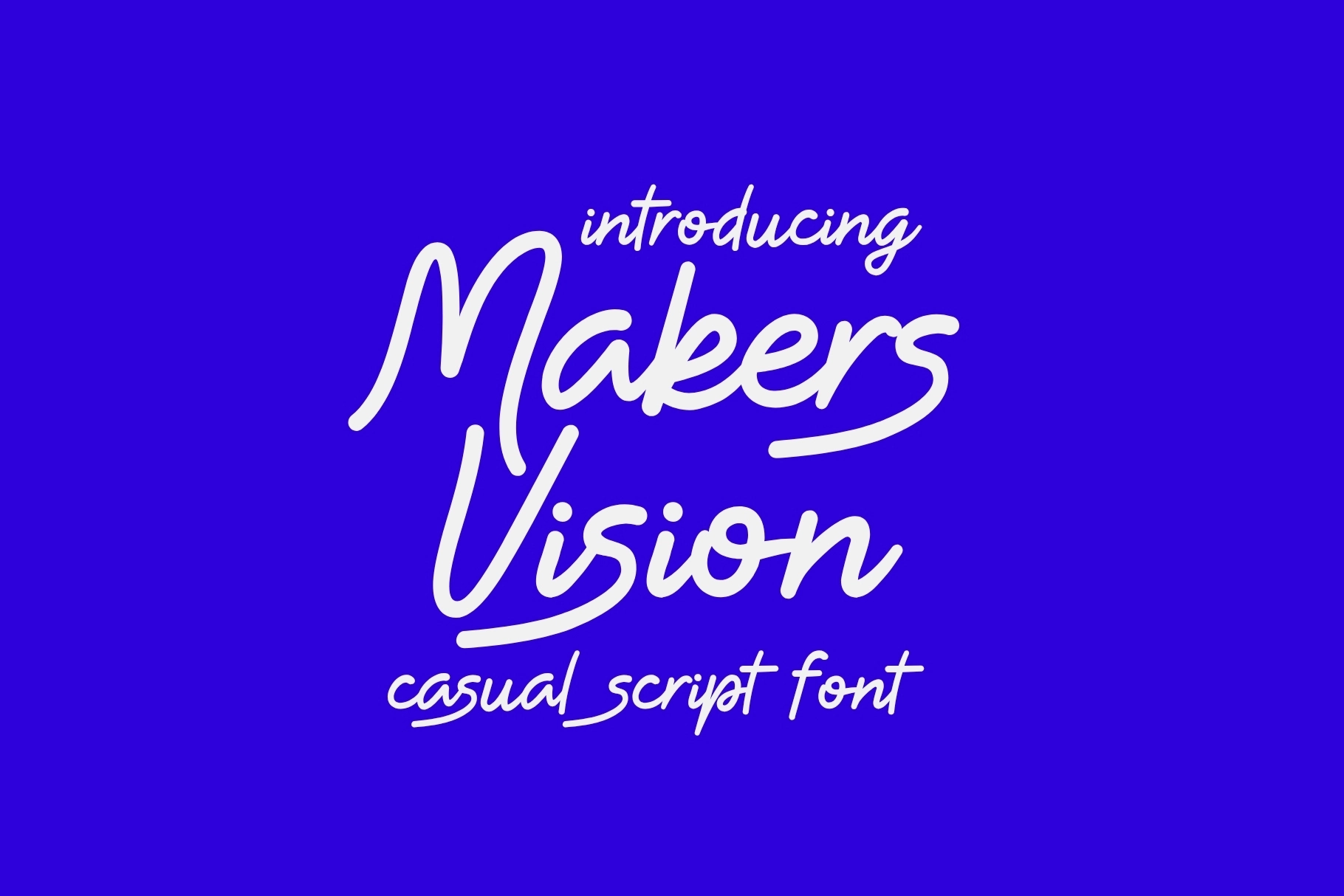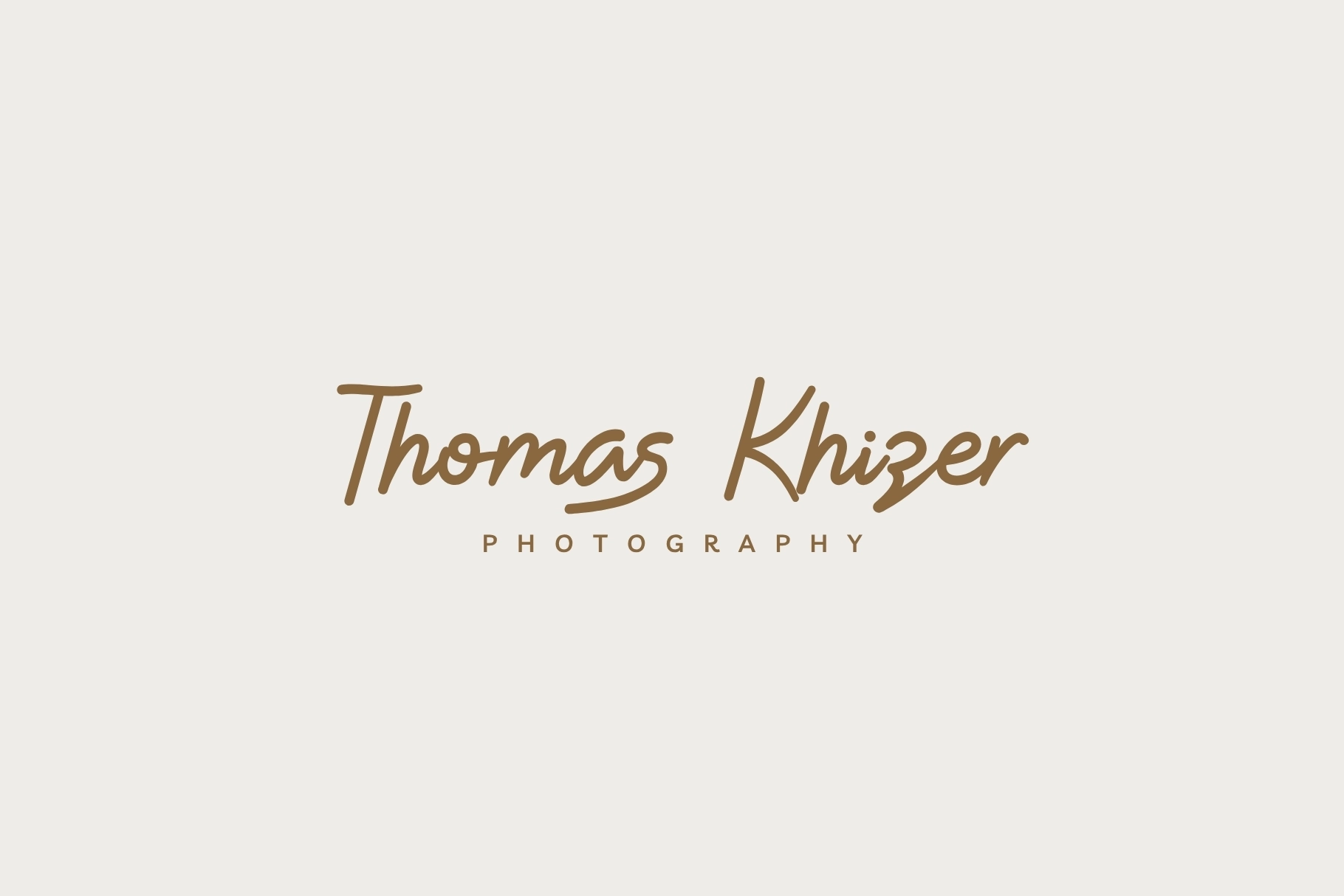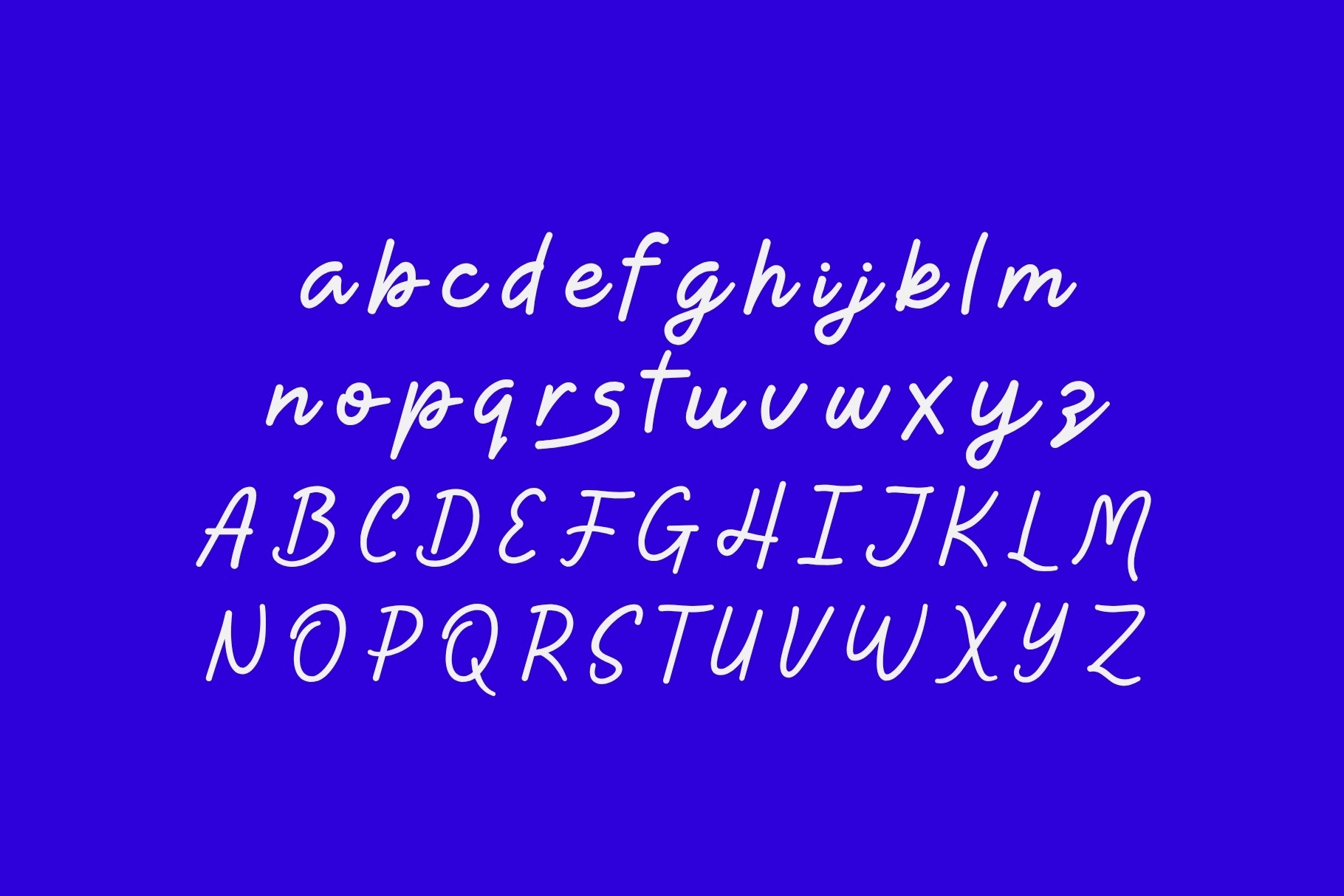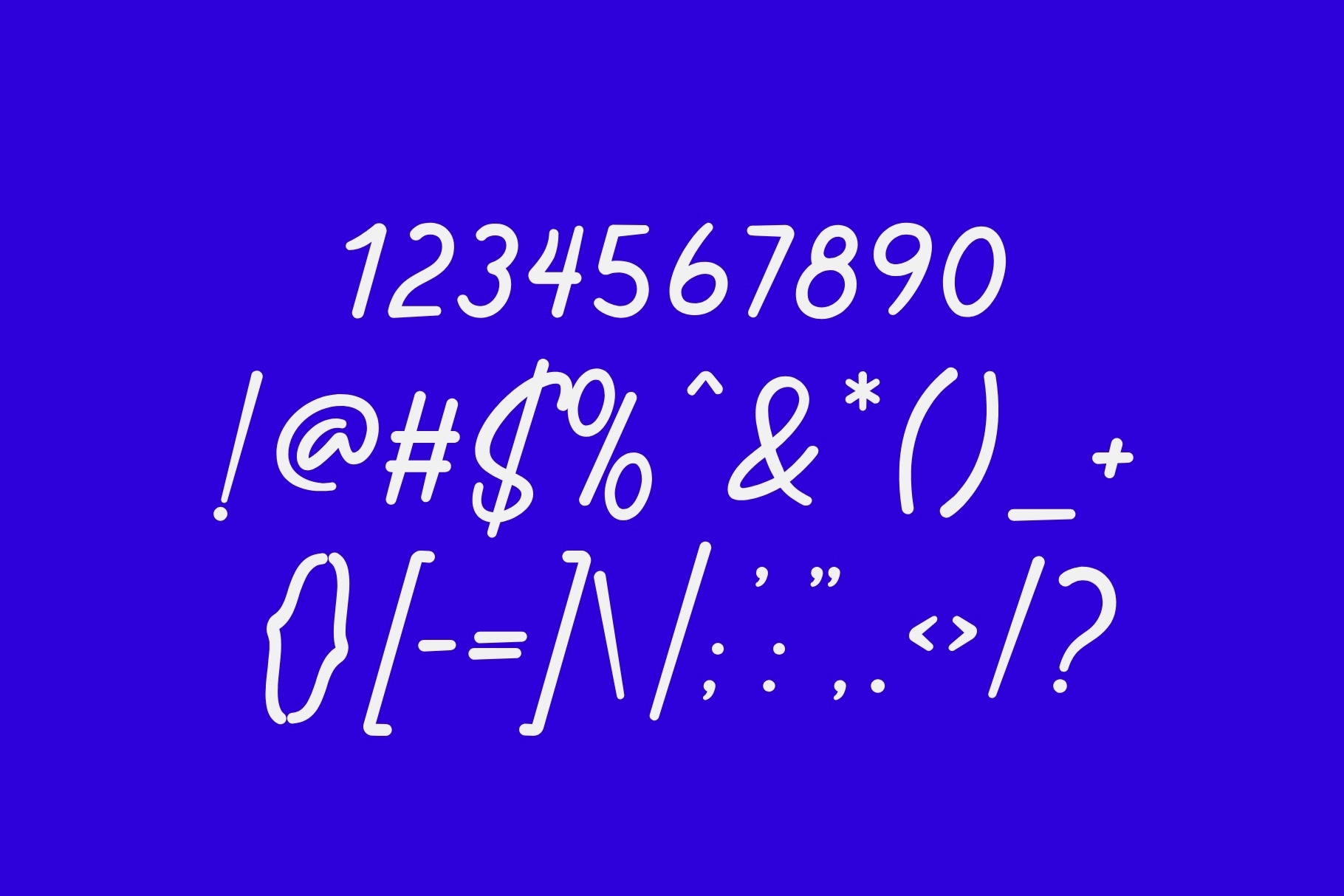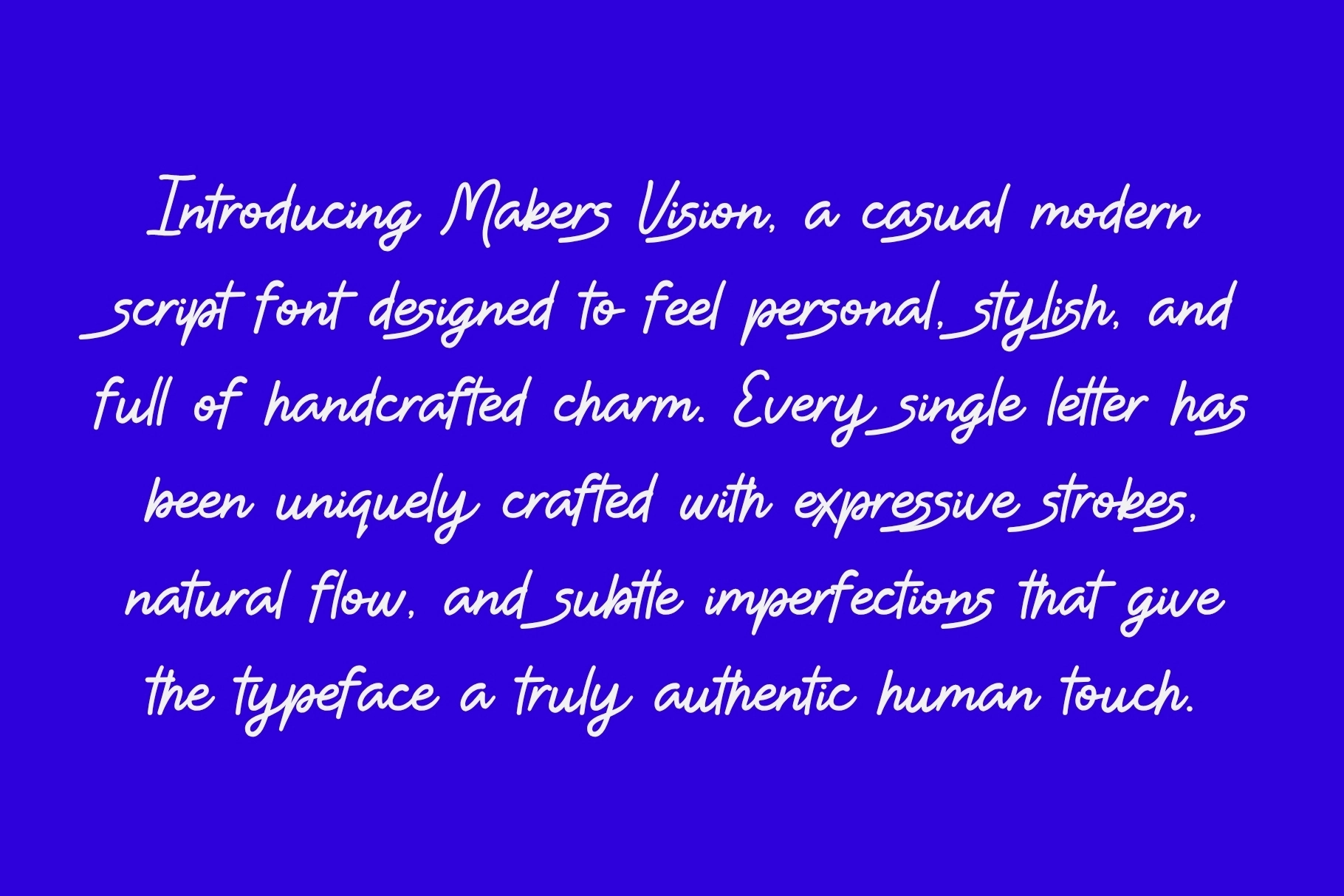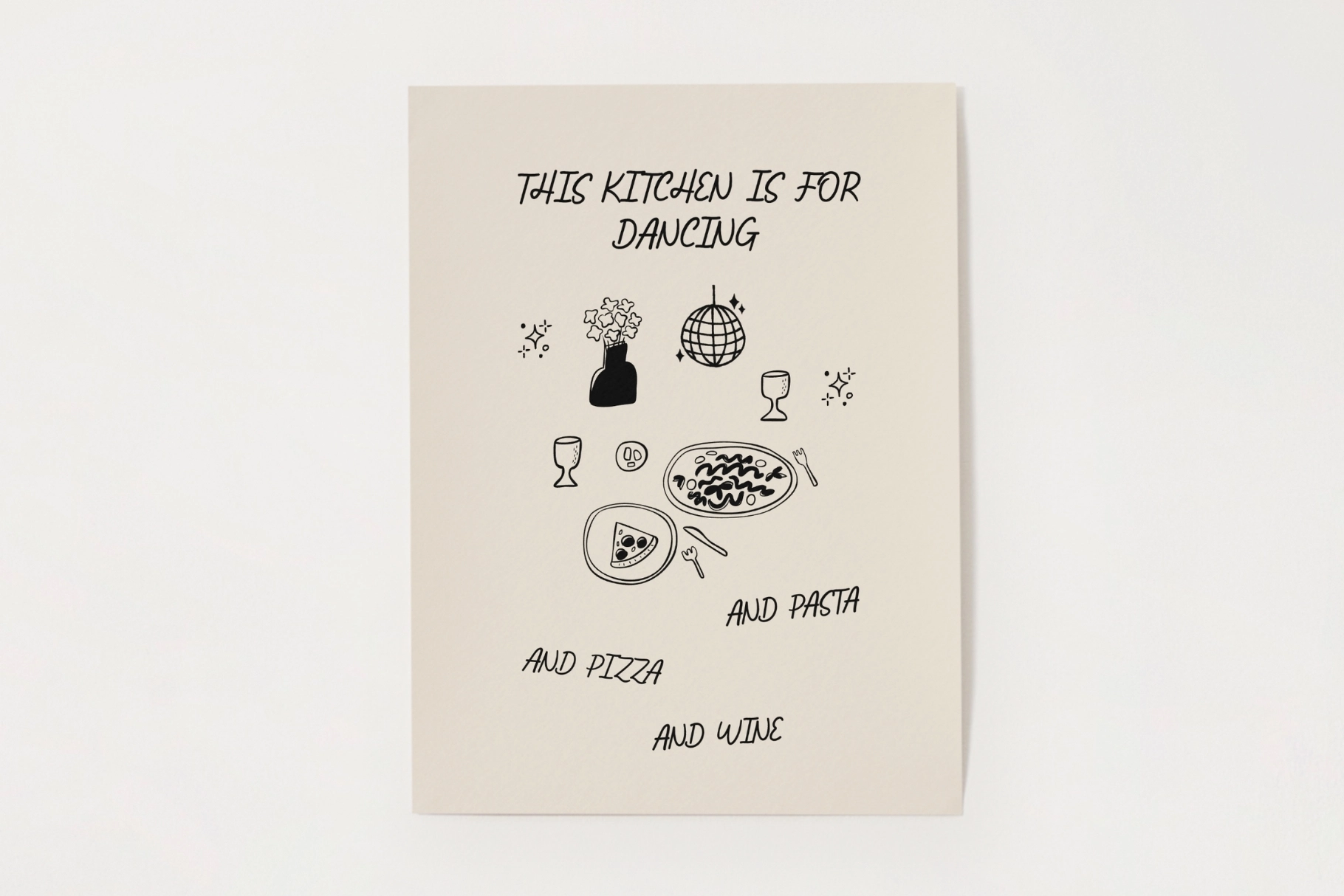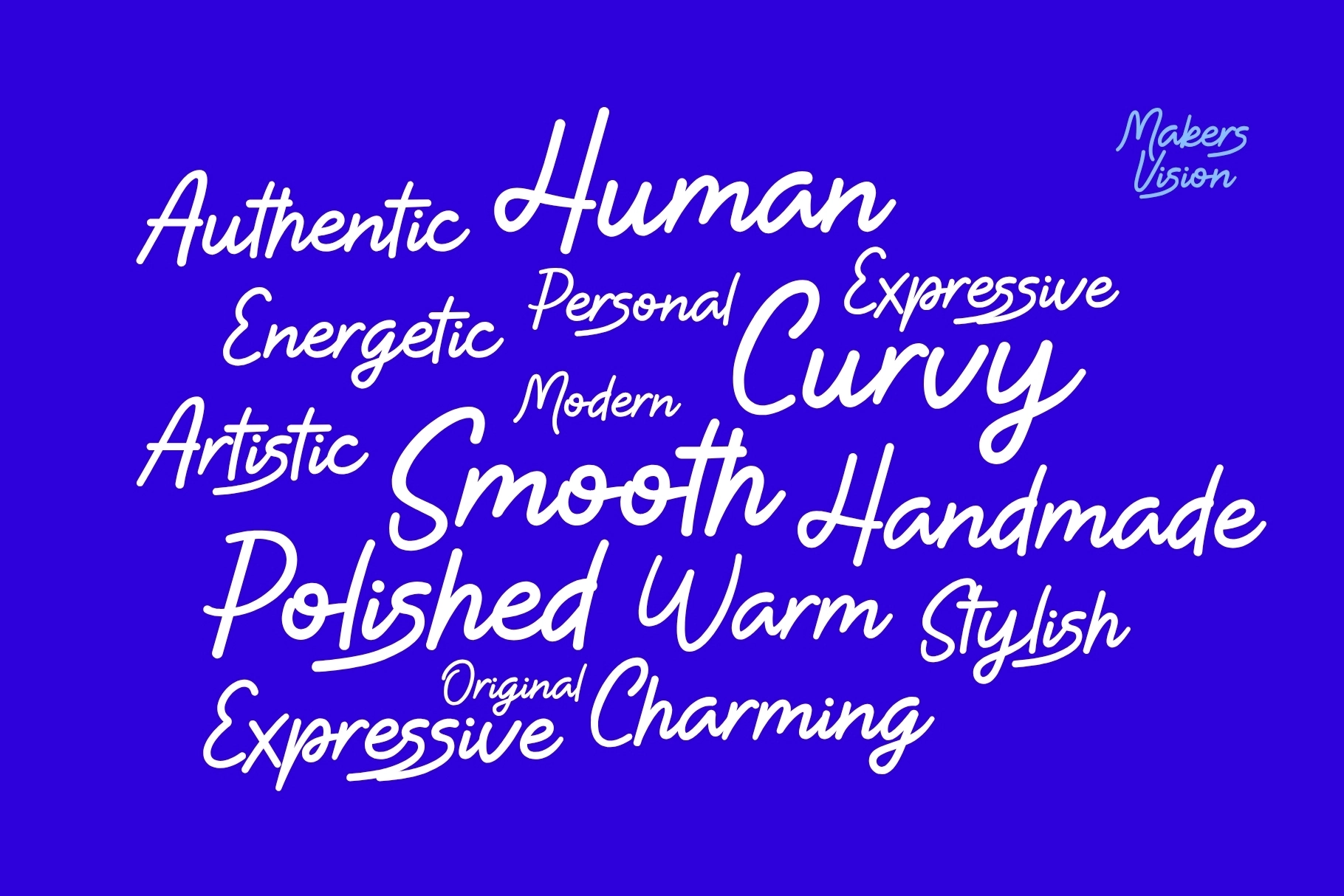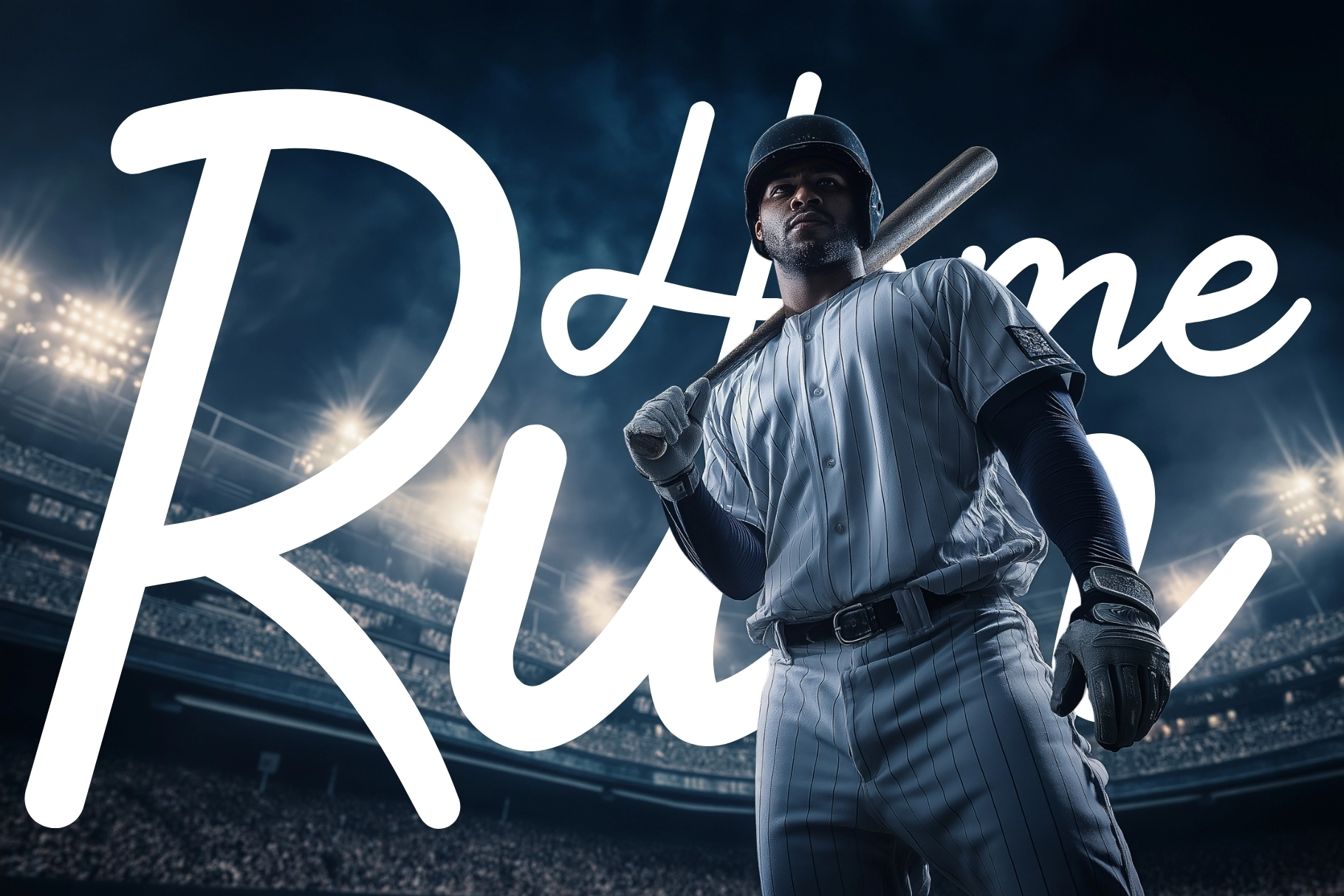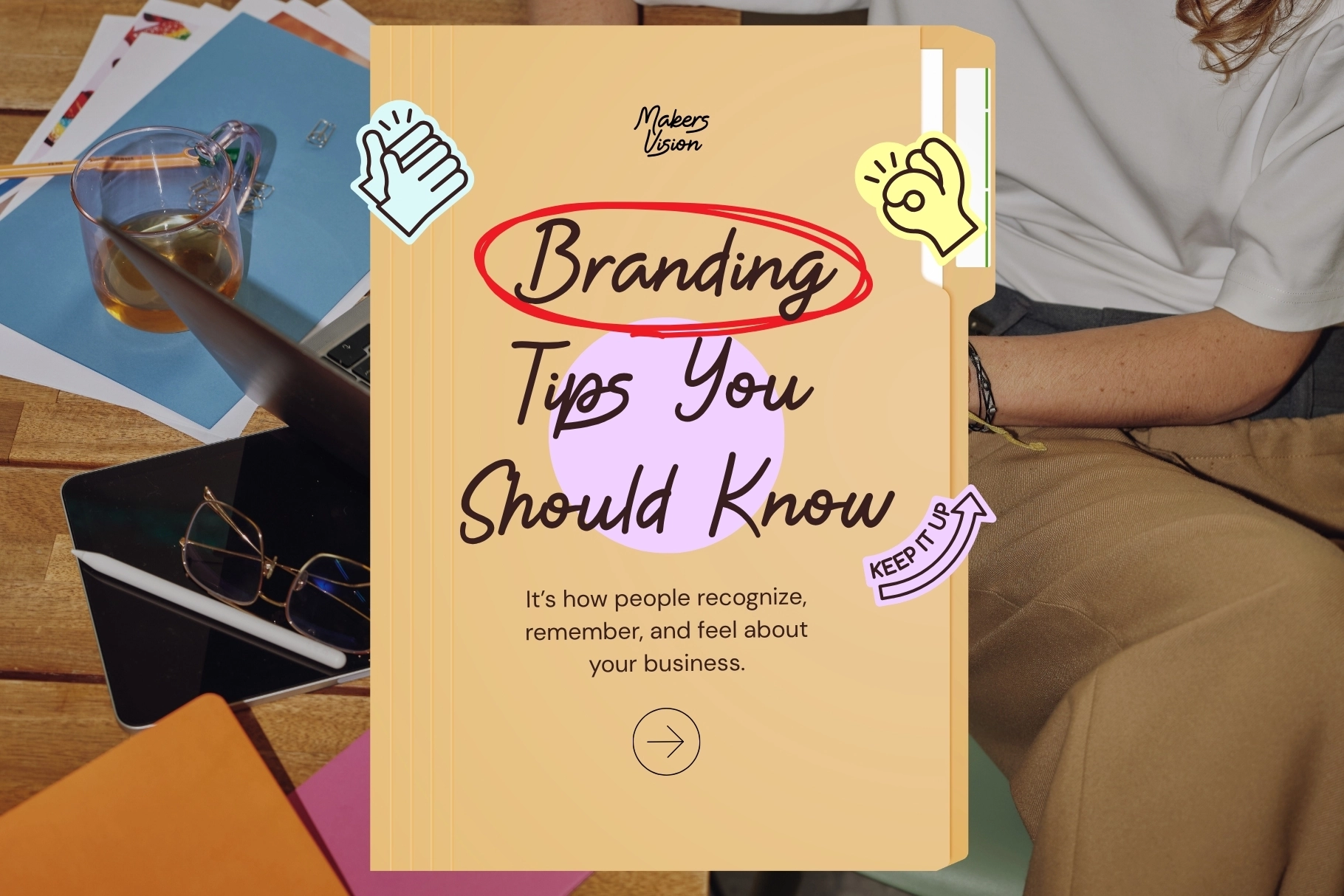
Makers Vision - Casual Script Font
This script font has flowing handwritten strokes, soft curves, and underlined accents that make words look personal without turning messy. Its casual rhythm is clean and expressive, with a polished look that suits friendly brands, creator-led projects, and layouts that need a human signature.
Makers works well for logos, branding, packaging, social media graphics, wedding invitations, apparel prints, quote designs, photography watermarks, product labels, stationery, lifestyle content, creator merch, and blog headers. The uppercase, lowercase, numerals, and punctuation keep it practical for short phrases, display text, and handwritten-style accents across print and digital designs.
• Casual handwritten script style
• Expressive strokes